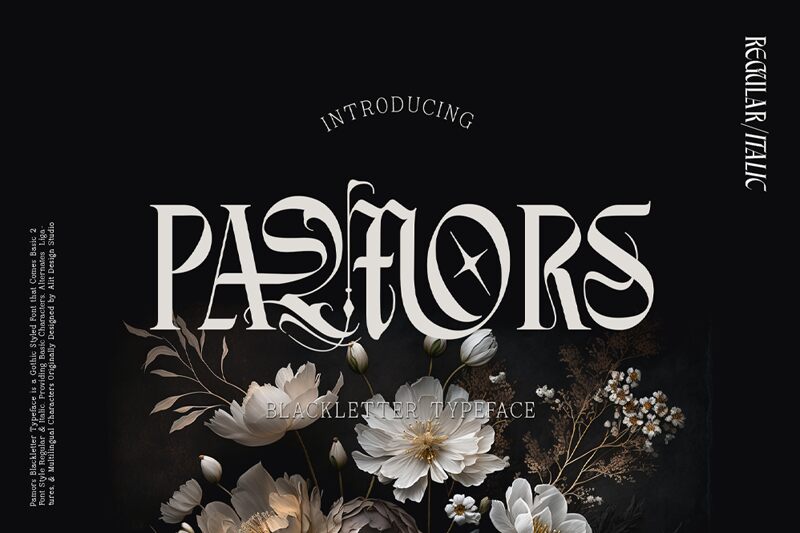
Pamors font by Alit Design is a free Gothic font inspired by the majestic nature of historical medieval and Roman lettering styles. The font showcases dramatic intonation in each of its letters, namely in its subtle serifs, curves, and occasional decorations at the edges. Its classic nature is maintained along with its intricate style while some slight touches of modernity can also be noticed.
The font is easily suitable for headings, titles, and content for posters and banners. It can be used for tattoos, logos, and branding materials especially if the brands are in the entertainment or fashion business.